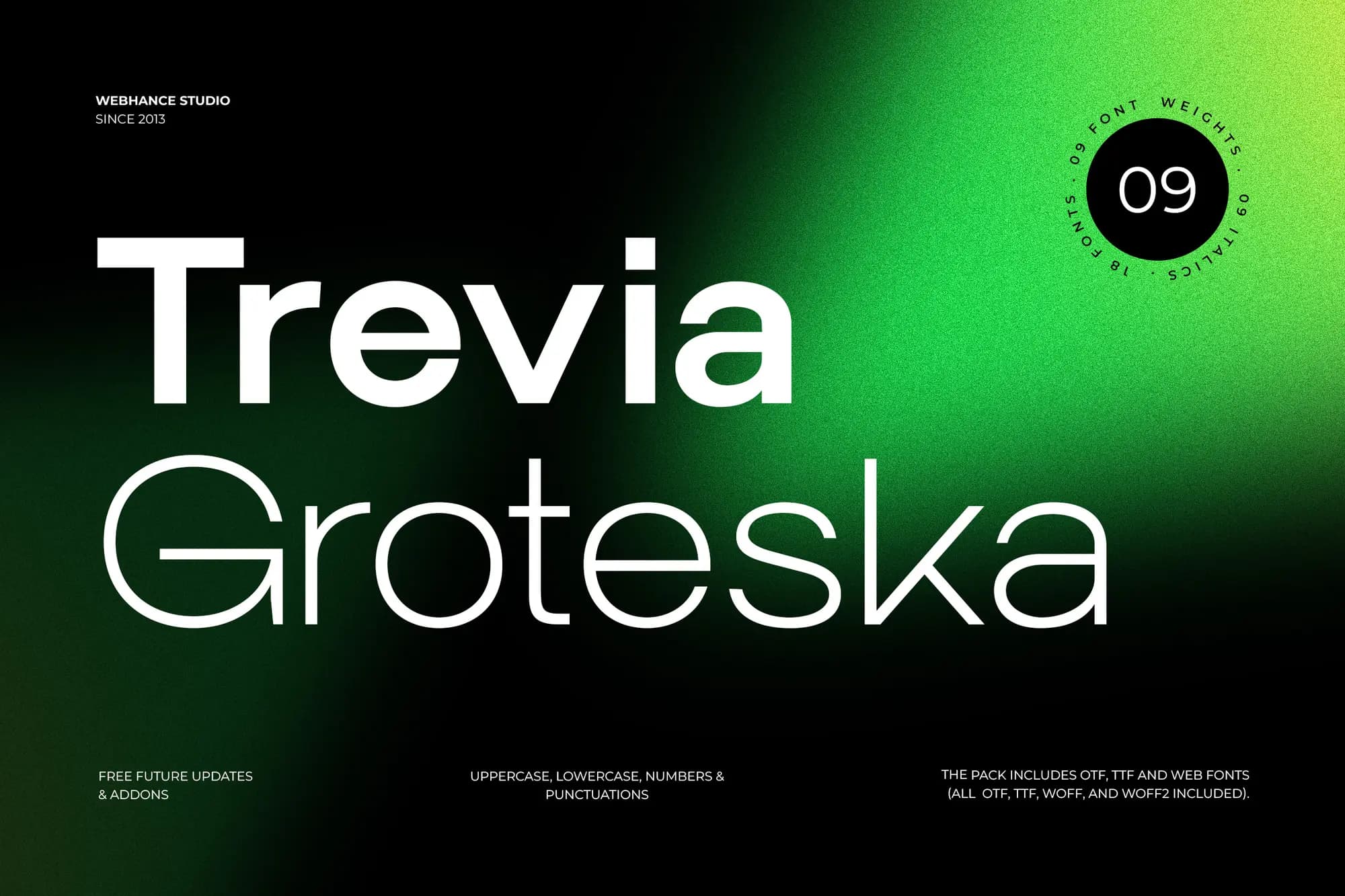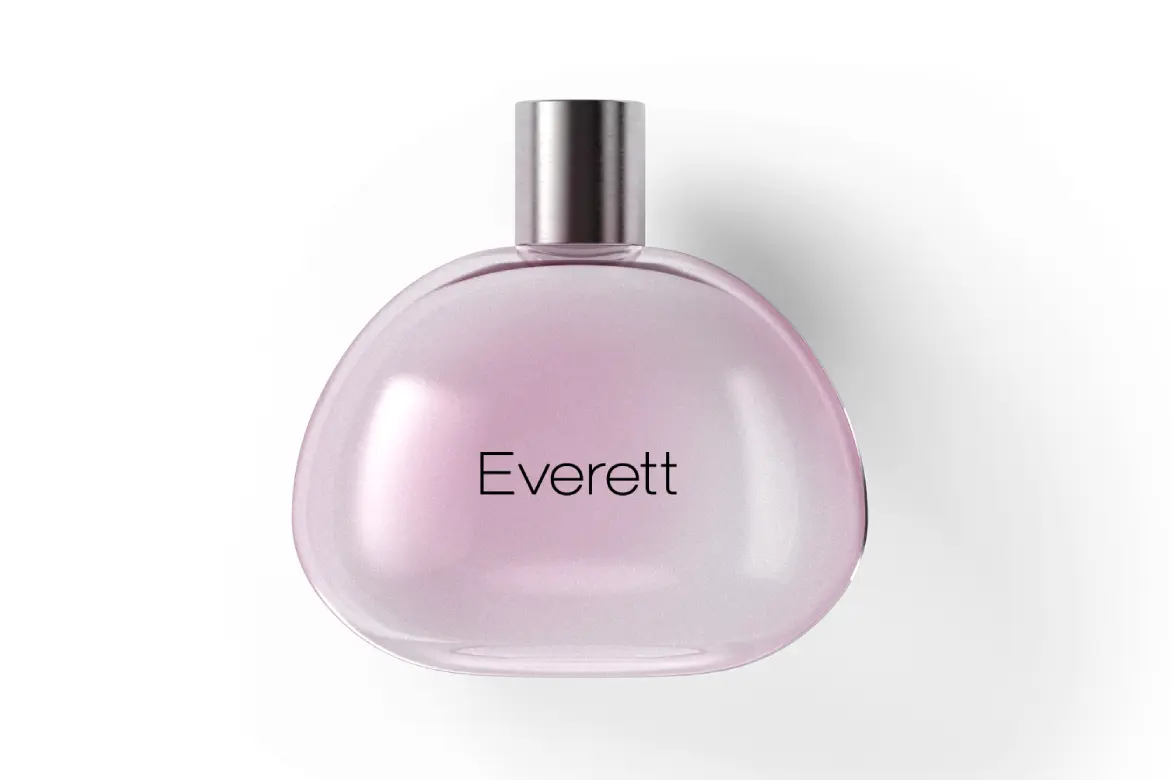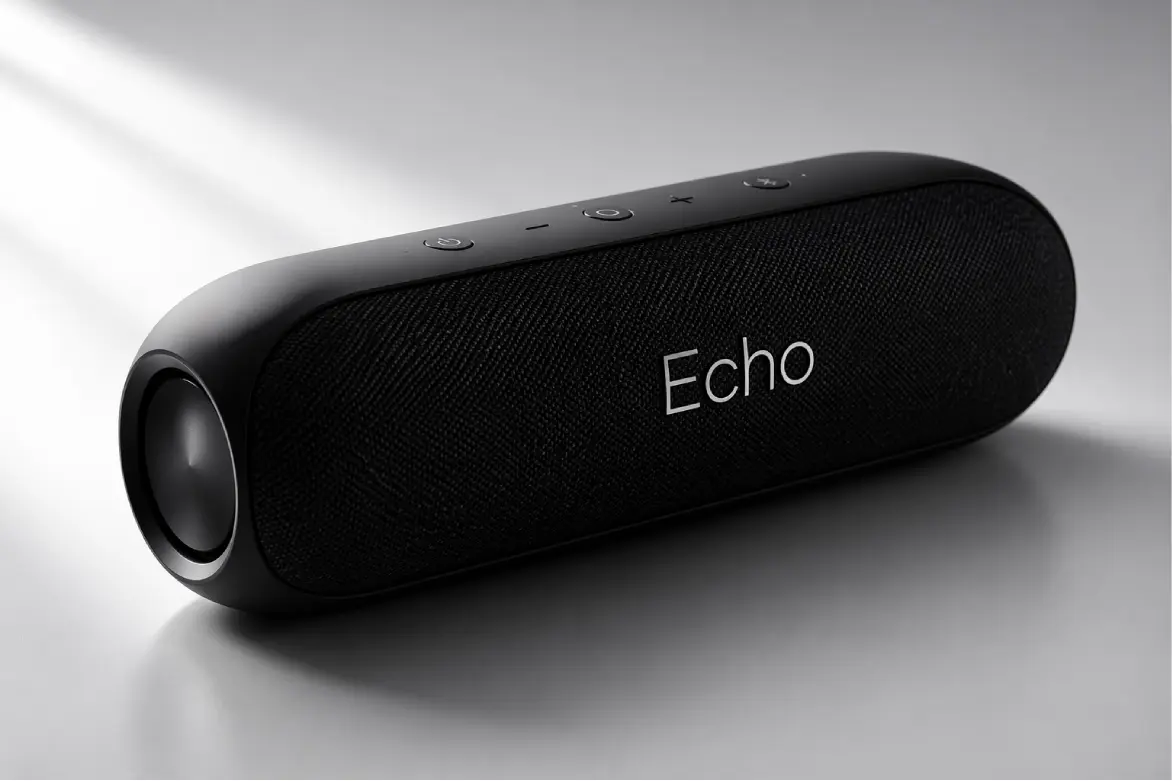
Trevia Groteska
Overview
Trevia Groteska is a modern sans-serif typeface designed for versatility and clarity. With its clean lines and balanced proportions, it excels in a variety of applications, making it ideal for poster typefaces, magazine typography, and branding projects.
Design Traits
- Geometric shapes create a contemporary look.
- Open spacing enhances legibility across sizes.
- Neutral tone suits diverse design contexts.
- Excellent readability in both print and digital formats.
Key Features
- Multiple weights and italics available.
- Extensive character support for multilingual use.
- Optimized for both print and screen performance.
Best Use Cases
- Perfect for eye-catching posters and promotional materials.
- Ideal for magazine layouts and editorial designs.
- Great for logo creation and custom branding.
- Suitable for social media graphics, including Instagram and TikTok.
- Effective in presentations and video titles.
Why Designers Choose Trevia Groteska
- Versatile for various design projects.
- Clean aesthetic enhances visual impact.
- Reliable performance in both digital and print.
- Supports a wide range of applications from branding to marketing.
- Easy to pair with other typefaces for unique designs.